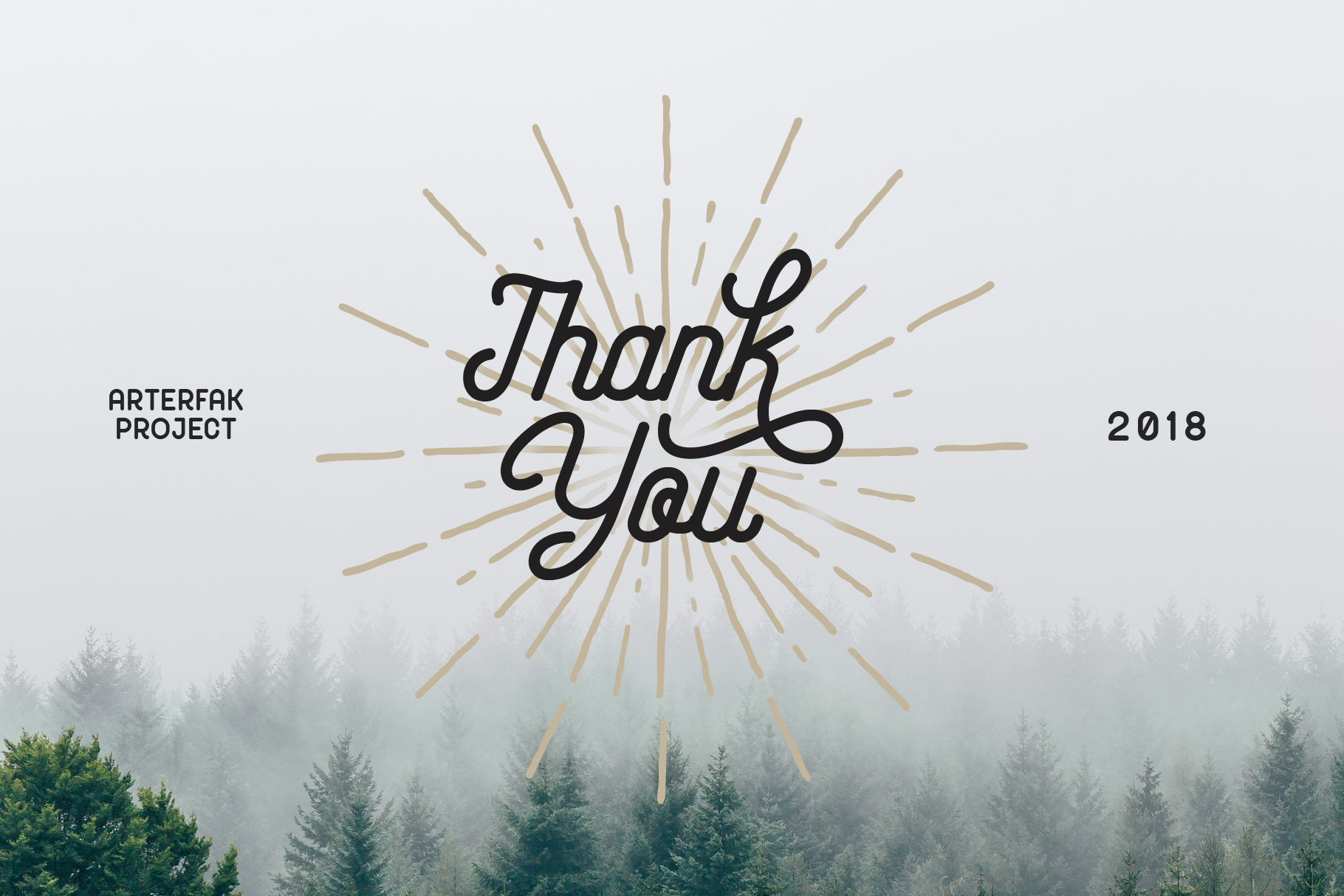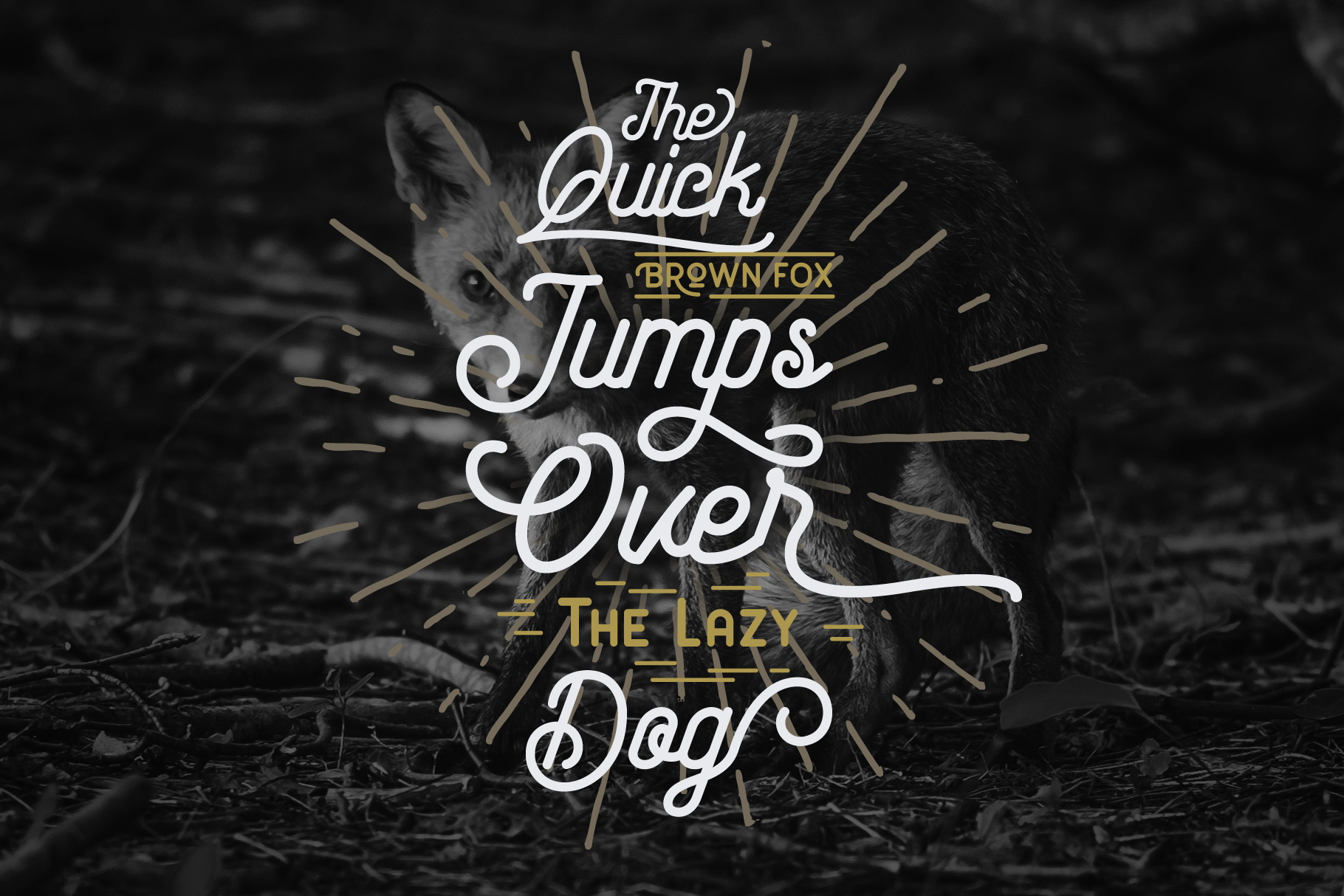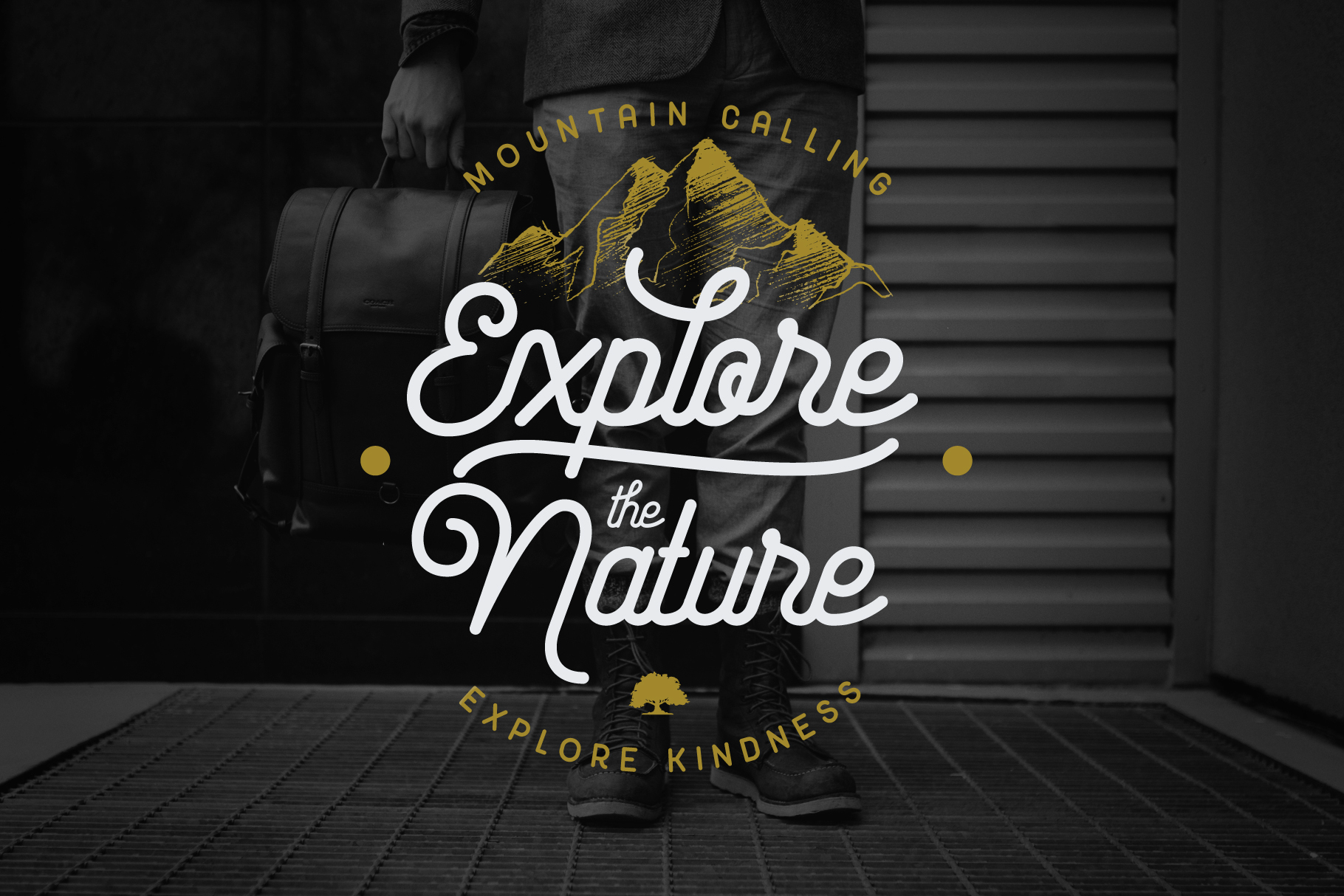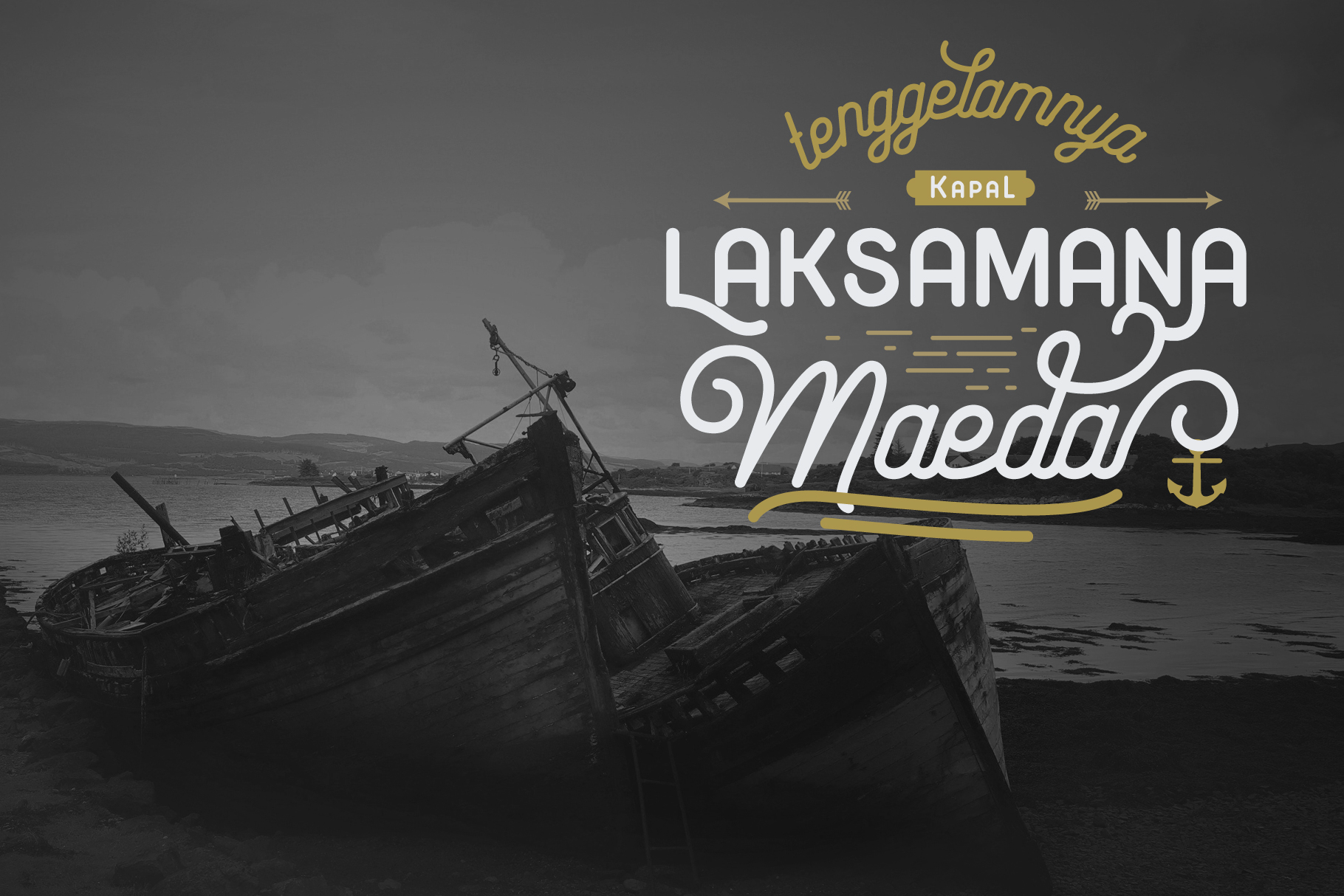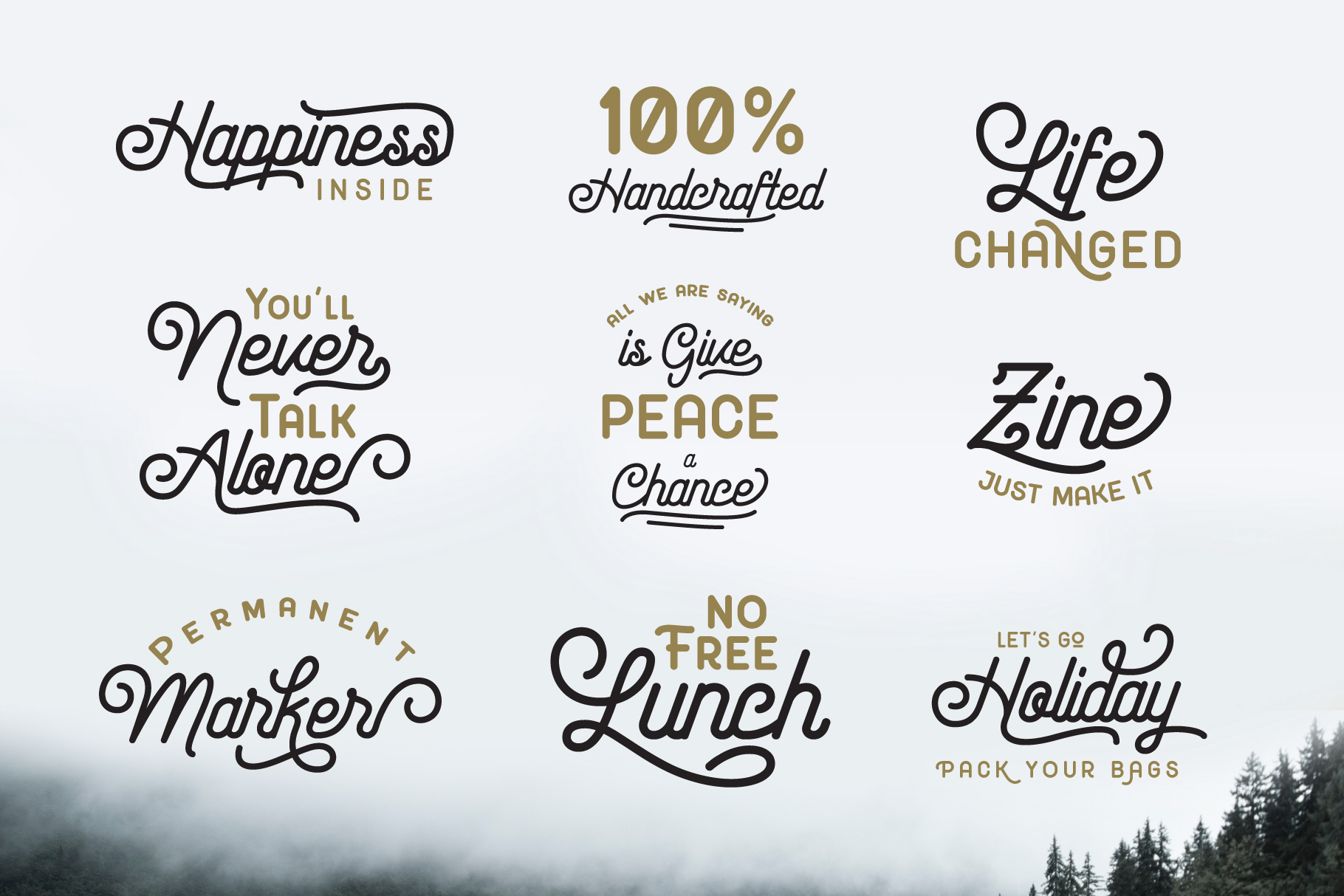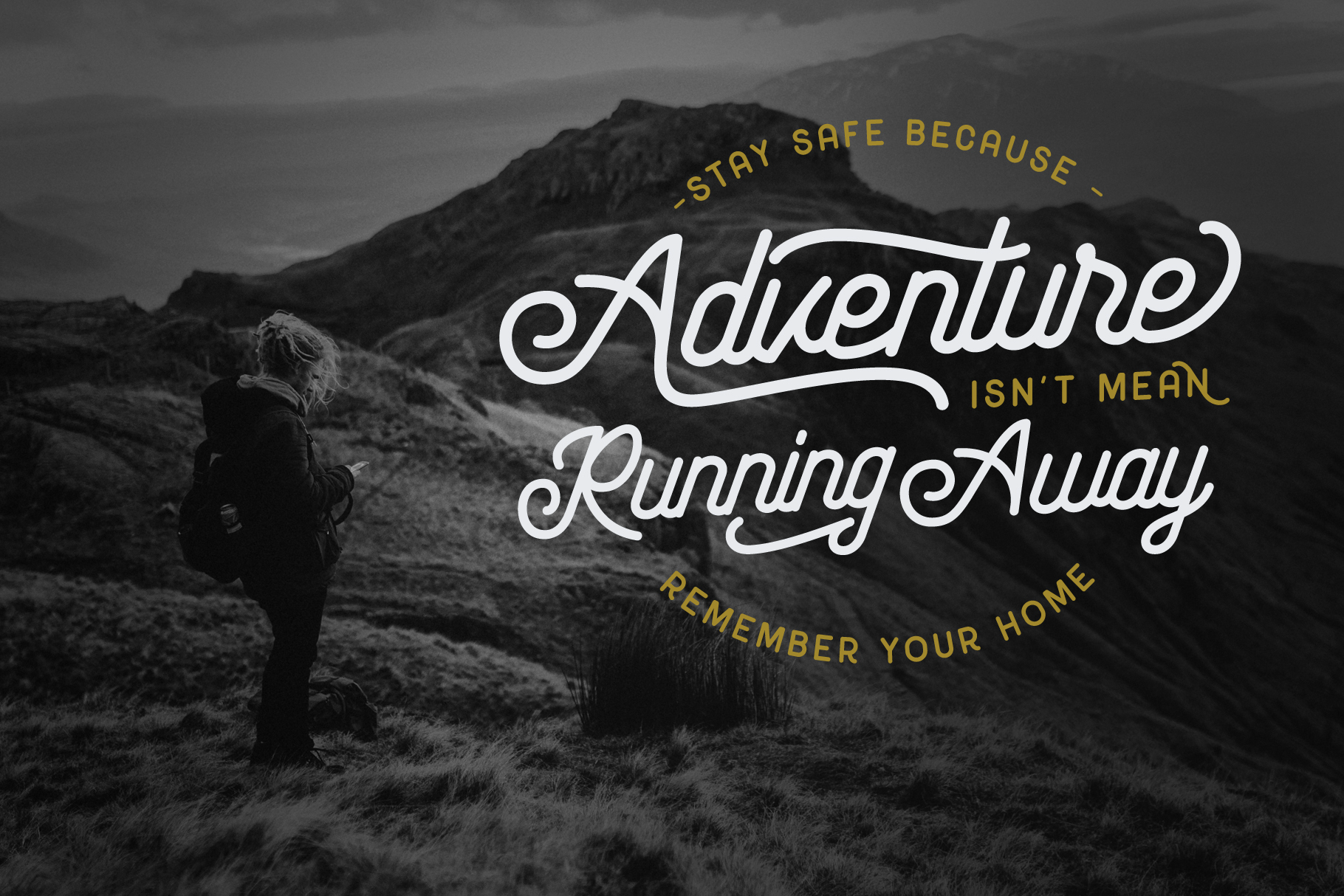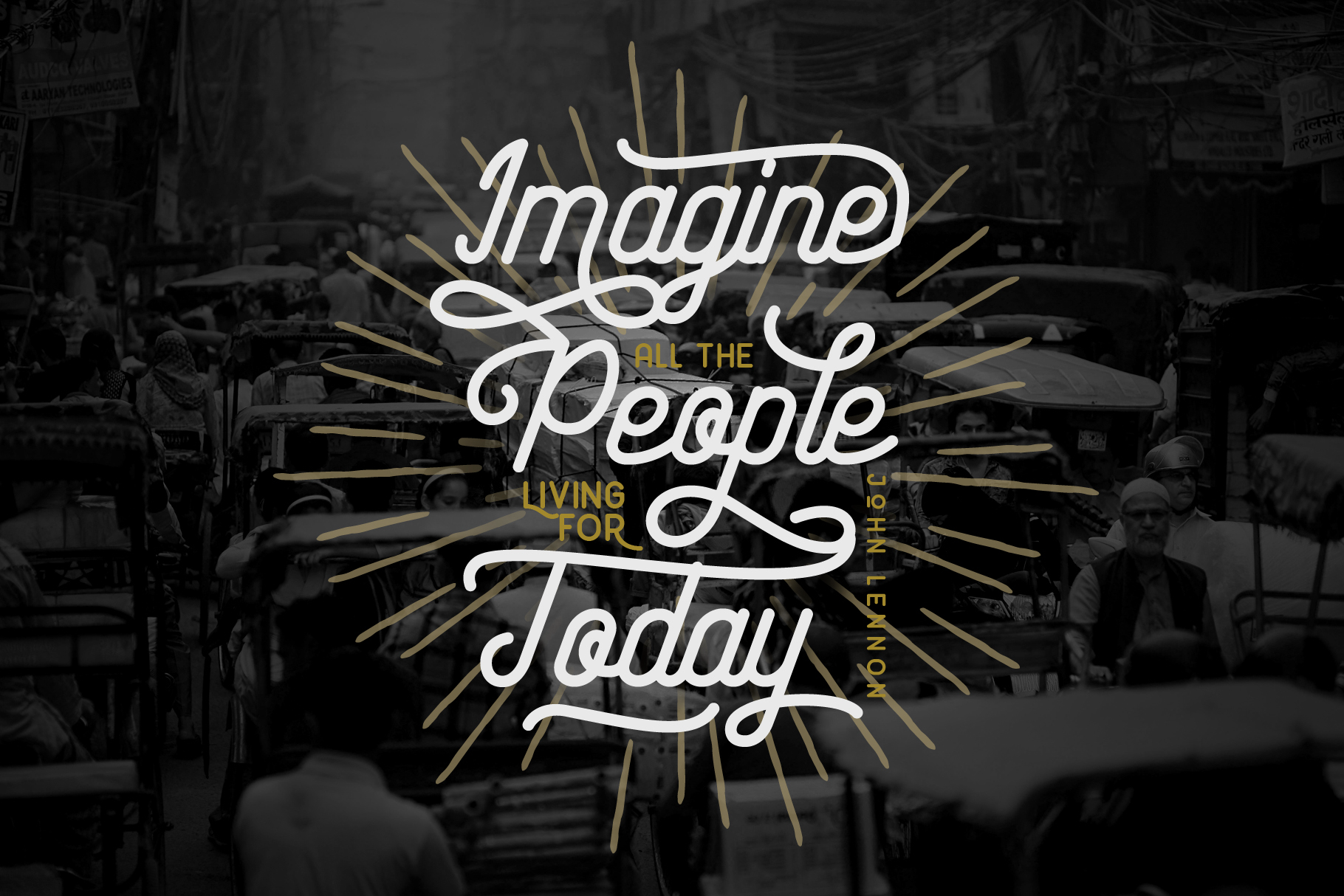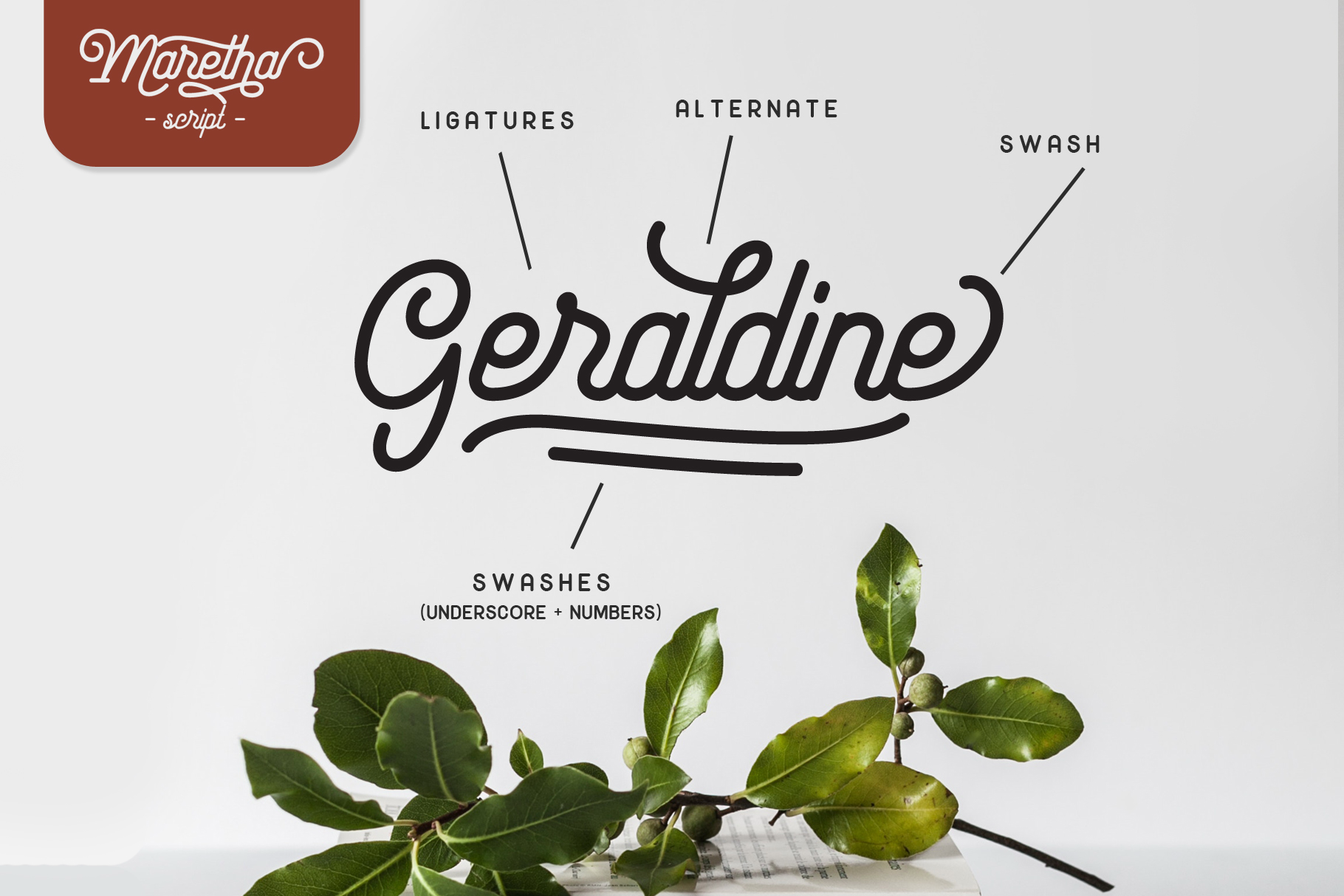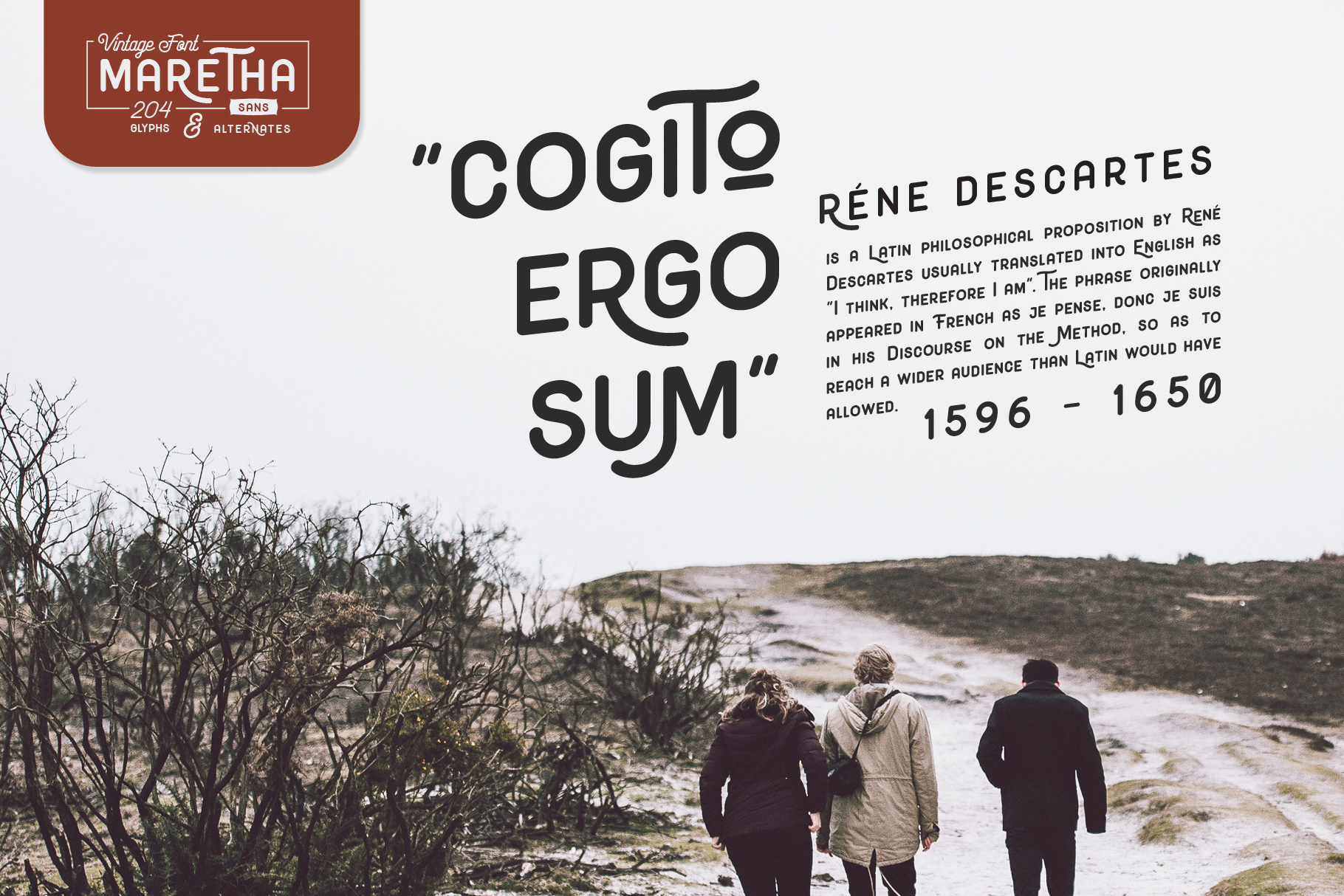
Maretha Font
About Maretha Font
Maretha is a great font family that consists of script and sans serif styles, perfect for truly authentic looking handlettered designs. This monoline font is stunning and looks great in modern and vintage inspired designs.